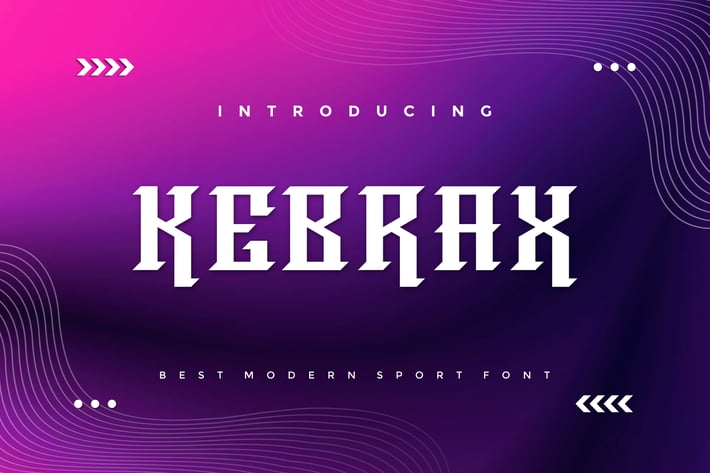
Kebrax - Modern Sport Font
Introducing our new product Kebrax - Modern Font
Kebrax is a bold, modern display font with playful flair, ideal for attention-grabbing headlines, logos, and diverse design projects. Versatile and readable in both digital and print, Kebrax adds a dynamic touch to your message.